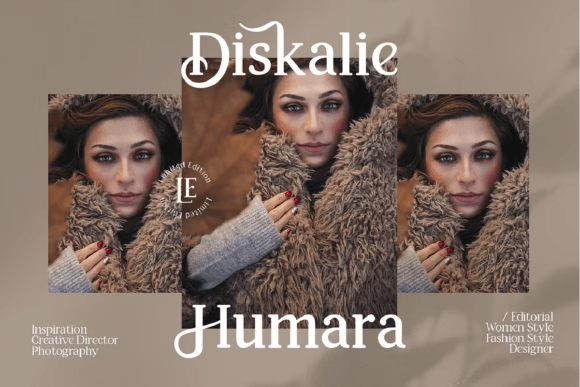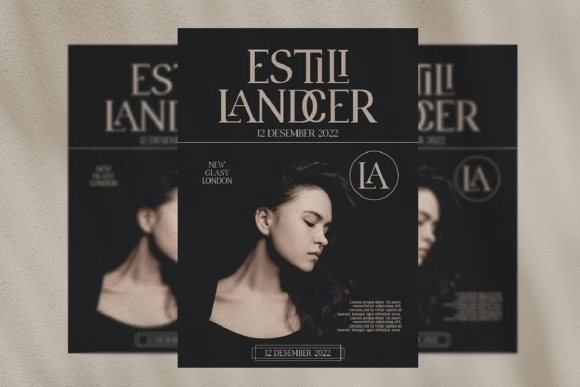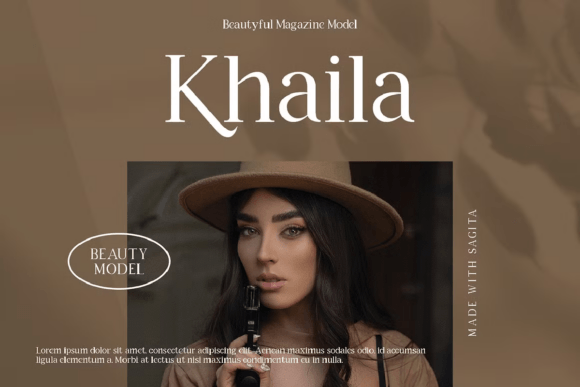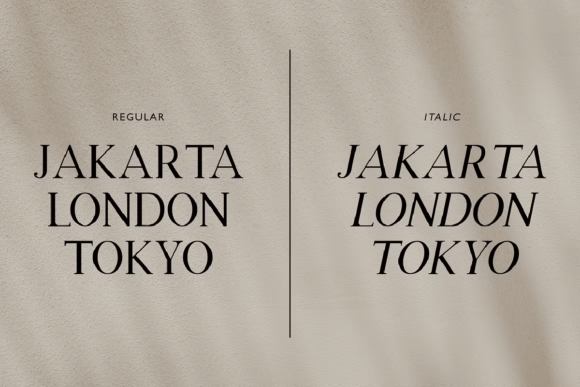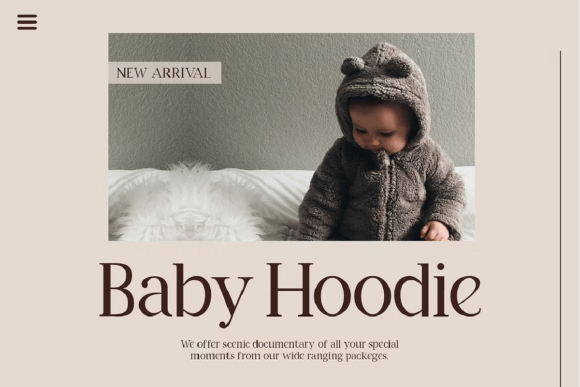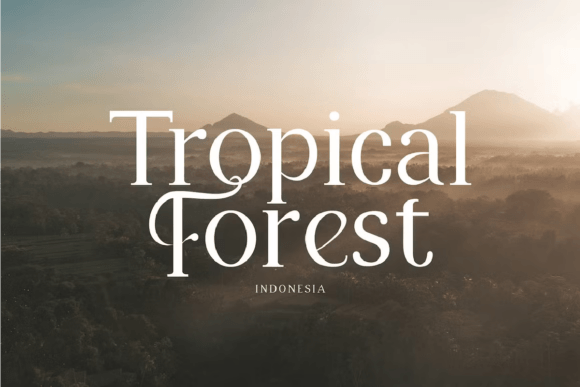
Brighton Font: Elevate Your Designs with Elegance and Sophistication
In the world of typography, fonts play a crucial role in conveying messages, expressing creativity, and establishing brand identities. Among the myriad of fonts available, the Brighton Font stands out as a modern serif font that embodies elegance, cleanliness, and a touch of sophistication. Designed to cater to a wide range of design needs, from branding and advertising to editorial and creative projects, Brighton is a versatile typeface that can elevate your visual creations to new heights.
The Characteristics of Brighton Font
At its core, the Brighton Font is characterized by its bold yet artistic features. Its serif design adds a classic touch, while its clean lines and modern aesthetic ensure it remains contemporary and relevant. This combination of traditional and modern elements makes Brighton a unique and compelling choice for designers seeking to create standout visuals. Whether you’re working on a logo, headline, invitation, or any other creative project, Brighton promises to deliver a professional, luxurious, and highly readable impression.
One of the key strengths of the Brighton Font is its versatility. Its elegant and clean design makes it suitable for a variety of applications, including:
- Branding: Establish a strong and sophisticated brand identity with Brighton. Its luxurious feel can help convey high-end quality and professionalism.
- Editorial Work: Enhance your publications with a font that offers both readability and style. Brighton’s classic touch with a modern twist ensures your editorial content stands out.
- Logos: Create memorable and impactful logos with Brighton. Its bold characteristics ensure your logo will be noticed and remembered.
- Headlines: Grab attention with stylish and clear headlines. Brighton’s design ensures your message is conveyed effectively and with flair.
- Invitations: Add a touch of elegance to your invitations, making them perfect for special occasions, events, or formal gatherings.
Why Choose Brighton Font?
In a market saturated with fonts, Brighton distinguishes itself through its unique blend of classic and modern design elements. Here are a few reasons why designers and crafters might prefer Brighton:
- Elegance: Brighton offers an elegant design that can add a touch of sophistication to any project.
- Readability: Despite its artistic features, Brighton maintains high readability, making it suitable for both headings and body text.
- Versatility: Its adaptability across various design applications makes Brighton a valuable addition to any designer’s toolkit.
- Uniqueness: With Brighton, you can ensure your designs have a distinctive look that sets them apart from the crowd.
Tips for Using Brighton Font Effectively
To maximize the impact of Brighton in your designs, consider the following tips:
- Pair with Complementary Fonts: When using Brighton alongside other fonts, choose typefaces that complement its elegance and modernity. A sans-serif font for body text can create a balanced and appealing visual hierarchy.
- Adjust Weight for Emphasis: Brighton comes in various weights. Utilize these to create visual contrast and emphasis within your design, ensuring that your key messages stand out.
- Consider Color and Background: The elegance of Brighton can be further enhanced by thoughtful color choices. Ensure sufficient contrast between the text and background to maintain readability and visual impact.
| Font Name | Brighton Font |
| Author | Font Liner |
The Brighton Font is a powerful tool for designers and crafters looking to infuse their projects with elegance, sophistication, and a modern edge. Its versatile design, combined with its readability and artistic characteristics, makes it an excellent choice for a wide range of applications. Whether you’re aiming to create a lasting brand impression, craft beautiful editorial content, or simply add a touch of class to your creative projects, Brighton is a font that can help you achieve your design goals with style and impact.